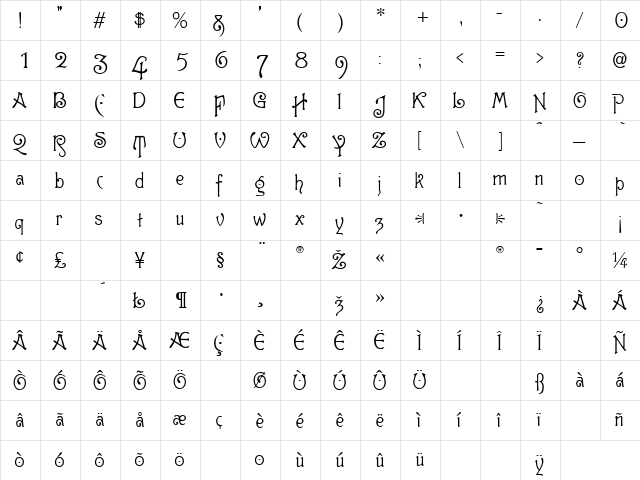
Gutenberg Medium Font Preview
Gutenberg Medium
Gutenberg Medium Font Details
Design Context for Gutenberg Typeface
Gutenberg is a composed and adaptable typeface that performs quietly and consistently across a wide range of design contexts.